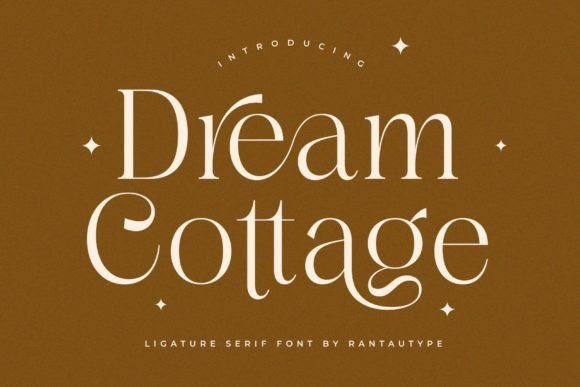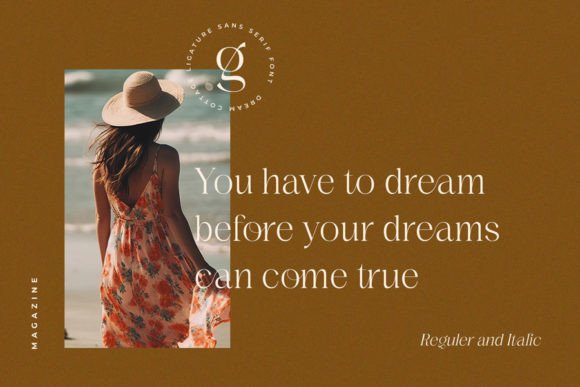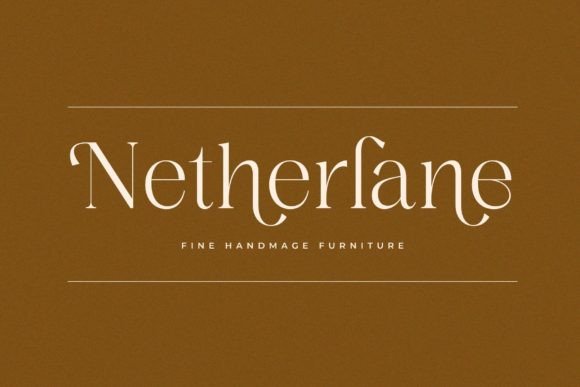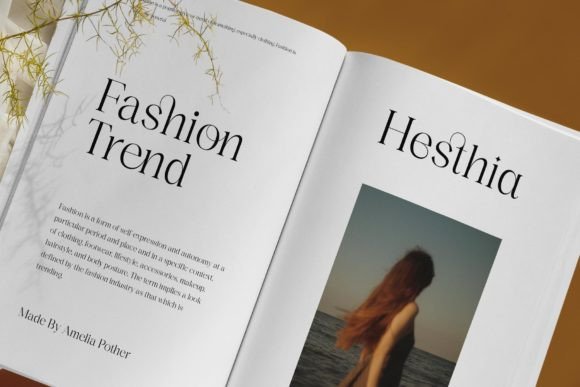
Dream Cottage Font: Elegant Serif for Chic Logo Design
About the Dream Cottage Font
Introducing the Dream Cottage Font, a beautifully crafted typeface designed to elevate your creative projects. Dream Cottage- a chic & elegant display modern serif with beautiful contrast and unique ligature for optional. Specially designed for fashion-themed projects, perfectly suitable for creating elegant, chic, lifestyle designs such as logos, titles, magazines, and more. Now you have more choices when using Dream Cottage for typography.
Dream Cottage’s elegant, yet modern serif design excels in headlines, logos, and short-form text for branding and packaging where its chic personality shines. It’s also ideal for fashion-related publications and high-end product displays. However, avoid using it for large blocks of body text or UI elements; its stylish letterforms are better suited for impactful statements than extended readability.
Pairing Dream Cottage with a clean sans-serif like Montserrat or Lato provides a strong contrast, balancing its ornate details with modern simplicity. For a softer feel, consider pairing it with a script font such as Great Vibes, while a geometric sans-serif like Futura adds a touch of sophisticated restraint.
The overall personality of Dream Cottage is sophisticated and stylish, conveying a sense of refined luxury and modern femininity. Its distinctive ligatures offer an additional layer of visual interest for sophisticated branding projects.
Dream Cottage Font Usage Examples
Dream Cottage Font Example